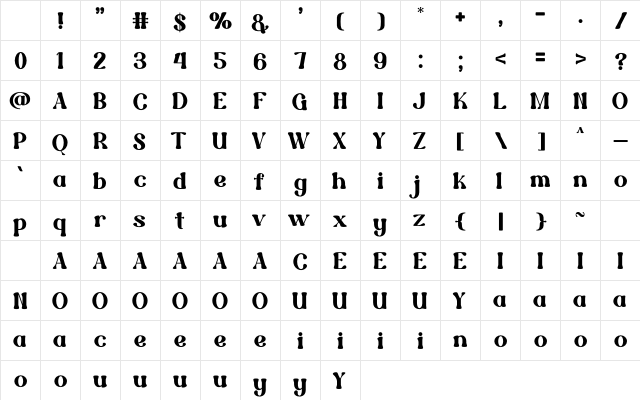
LAWLER is a composed and adaptable typeface that performs quietly and consistently across a wide range of design contexts.
Pro Tip: Use LAWLER in both headline and body roles to test its range before committing to a single application.